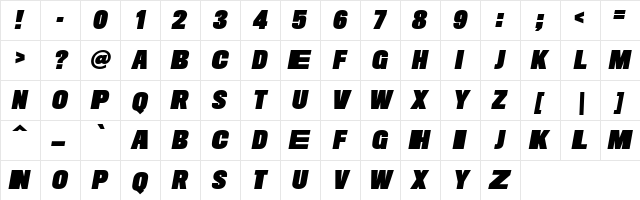
New Machines DEMO Regular
Design Context for New Machines DEMO Typeface
New Machines DEMO is a composed and adaptable typeface that performs quietly and consistently across a wide range of design contexts.